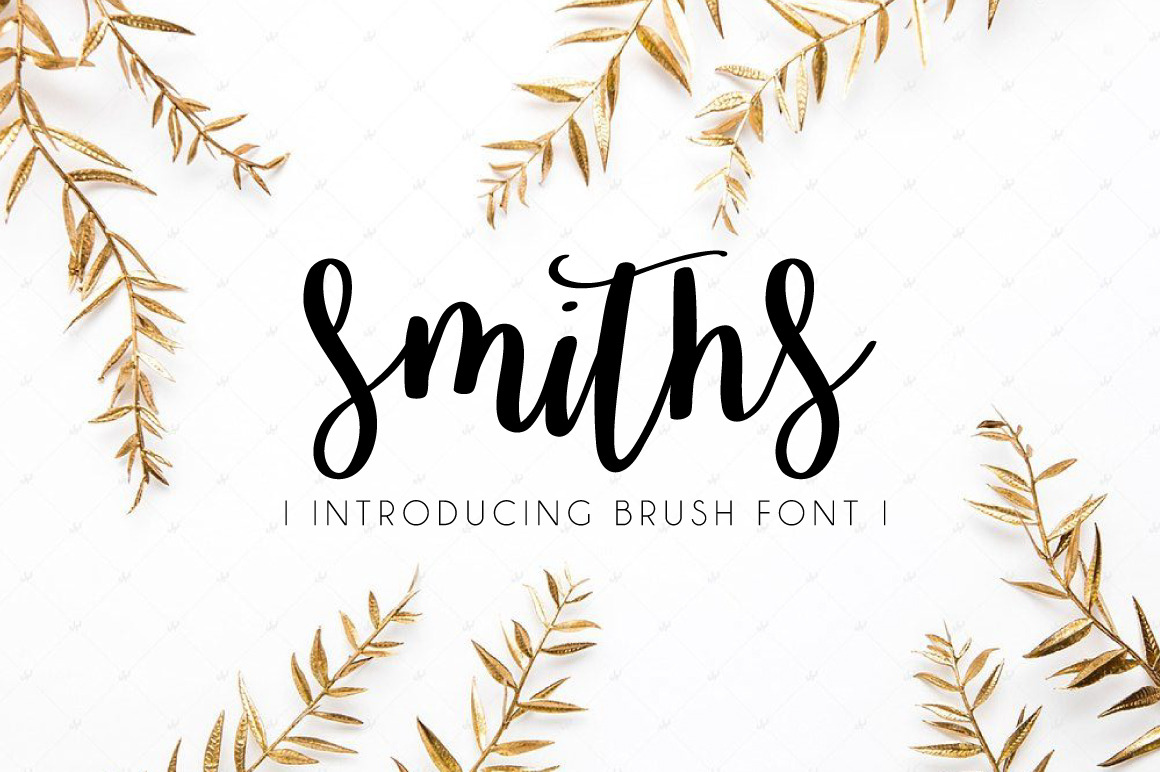
Smiths Font
It's hand written brush scripts. This font is ideal for branding and decorate your any project.
This font are perfect for wedding invitation or your blog. Also with their help, you can create a logo or beautiful frame for your home. Or just use for your small business, book covers, stationery, marketing, magazines and more.